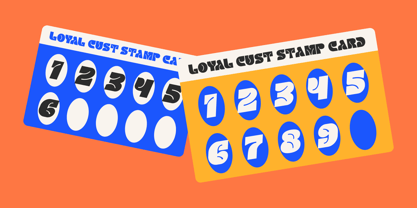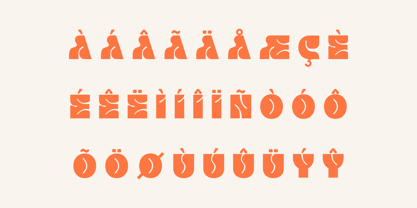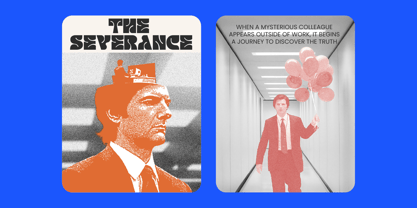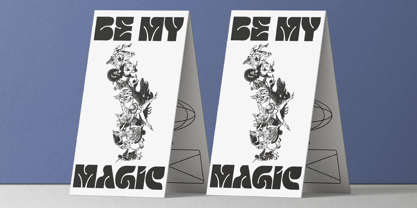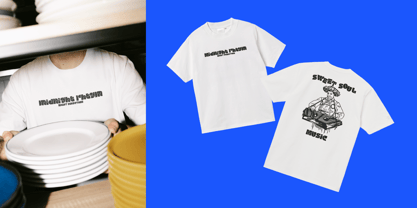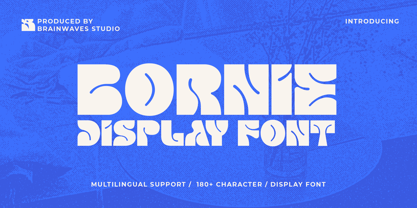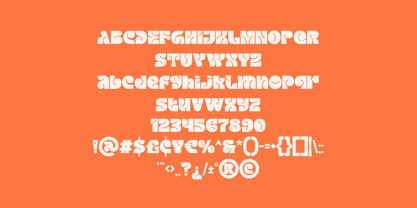
Bornie
by Brainwaves Studio
The Bornie Font Family was designed by Lucky Fitriadi and published by Brainwaves Studio. Bornie contains 2 styles and family package options.
Step back in time and get groovy with Bornie, a bold display font that's full of retro charm. Inspired by the funky, free-spirited vibe of the 60s and 70s, this font features thick, chunky letters with playful curves and a melted, flowing feel. It's the perfect way to add a dose of nostalgia and personality to your designs.
Bornie is a true statement-maker, designed to grab attention. Its unique style is ideal for creating memorable headlines, eye-catching logos, and vibrant posters that stand out from the crowd. Whether you're designing for a music festival, a bohemian cafe, or a playful lifestyle brand, Bornie brings a whimsical, fun energy that's impossible to ignore.
Designers: Lucky Fitriadi
Publisher: Brainwaves Studio
Foundry: Brainwaves Studio